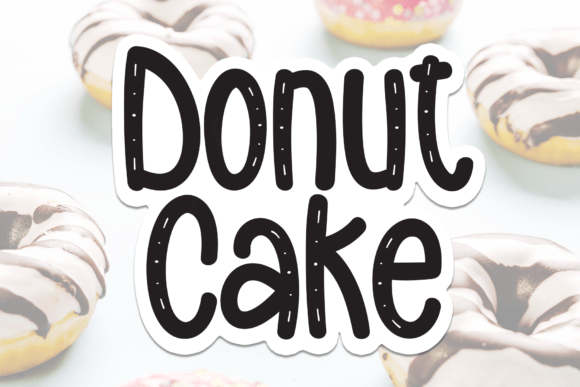
The Sweetness of Typography: Introducing Donut Cake Font
Have you ever been brainstorming a design project, and suddenly, a burst of creativity hits you? The ideas start flowing, and you can’t wait to bring your vision to life. That’s exactly what happens when you work with the right tools – and in the world of typography, that tool is the Donut Cake Font.
This charming handwritten font is more than just a pretty face; it’s a versatile design companion that can elevate any project. From wedding invitations to social media graphics, Donut Cake Font is the perfect partner in crime. Its natural and unique style makes it incredibly fitting to a large pool of designs, limited only by your imagination.
Key Features of Donut Cake Font
- Font Family: Donut Cake Font is a unique, hand-drawn font designed to resemble a donut cake.
- Character Count: The font contains 219 characters, including uppercase and lowercase letters, numbers, and special characters.
- Unique Characteristics: Donut Cake Font features a whimsical, playful design with intricate details and textures, making it perfect for creative projects, food labels, and packaging.
Designer Review: Donut Cake Font
Overall, I’d say the Donut Cake Font has some great qualities, but it also has some limitations. Let’s dive in and take a closer look.
- Unique design: The Donut Cake Font has a playful, whimsical feel that’s perfect for a bakery or a dessert-themed brand.
- Limited character set: The Donut Cake Font has a limited character set, which may not be ideal for longer blocks of text.
- Lack of italics and bold: While the font is highly customizable, it doesn’t come with italic or bold versions, which may limit its use in certain contexts.
- Not suitable for formal use: The Donut Cake Font is best suited for casual, playful designs, and may not be suitable for formal or professional applications.
Overall, I think the Donut Cake Font is a fun and playful addition to any design project. While it has some limitations, it’s perfect for a bakery or dessert-themed brand looking for a unique and eye-catching font.
The Donut Cake Font is ideal for:
- Cake and dessert-themed designs.
- Wedding and party invitations.